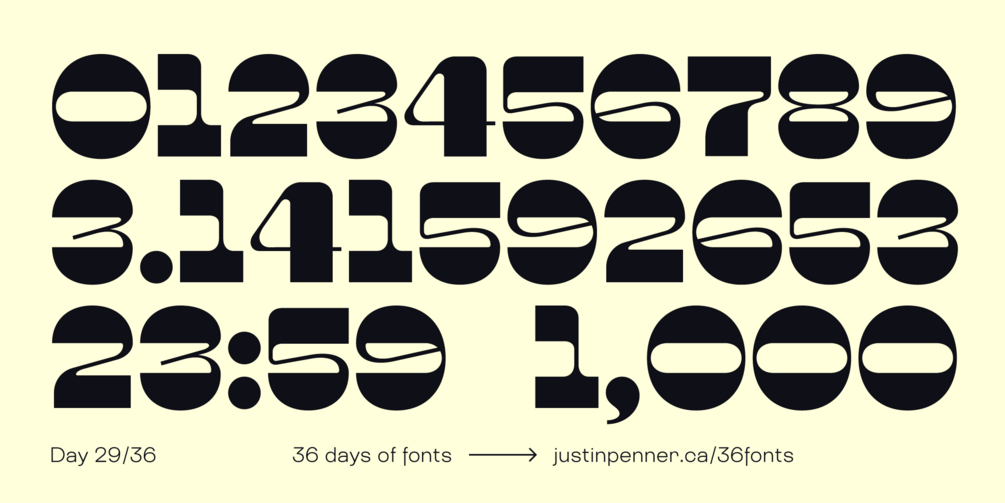
36 Days of Fonts: Day 29
Pinch
This is pretty similar to what you'd call reverse contrast, but the heavy strokes are predominantly at the vertical extremes, and the thin strokes are "pinched" in the middle.